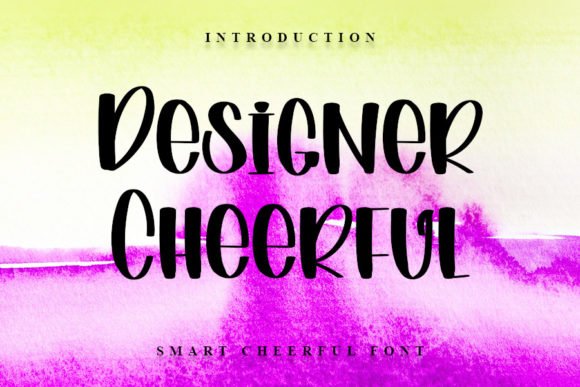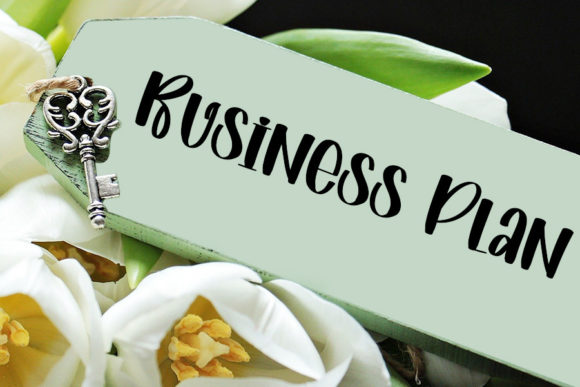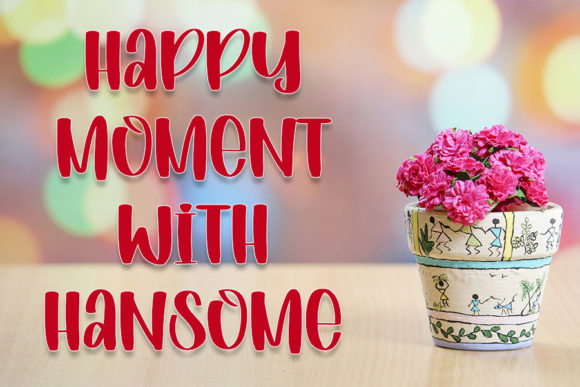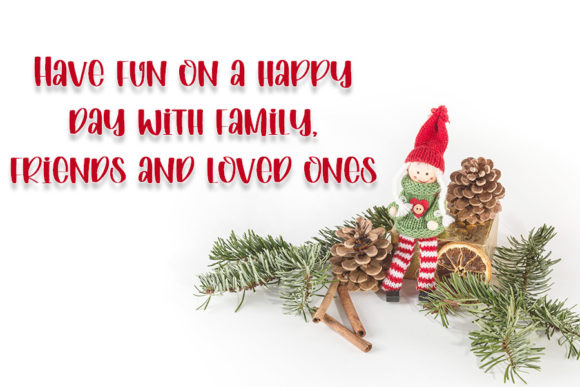
Bringing Joy to Your Designs: The Magic of the Designer Cheerful Font
Who hasn’t had a moment where they stumbled upon a font that perfectly captured the essence of their creative vision? The feeling of excitement and possibility that comes with finding that perfect match is what drives designers to push the boundaries of their work. For me, it was the moment I discovered the Designer Cheerful Font – a smart, cheerful, and cute display font that has since become my go-to choice for projects that require a touch of whimsy.
| 👤 Author | NYA Letter |
Whether you’re working on a cartoon-related design, a children’s game, or simply a creation that needs a lovely touch, the Designer Cheerful Font is an amazing choice. Its versatility and charm make it an invaluable asset for designers looking to add a dash of personality to their work.
Designer Cheerful Font Key Features
- Character Set: This font includes a comprehensive set of characters, including uppercase and lowercase letters, numbers, punctuation marks, and special characters, making it suitable for various applications.
- Unique Characteristics: This font features a cheerful and playful design, with rounded edges and a friendly feel, making it perfect for creating eye-catching headings, titles, and other display text.
- Font Weight and Style: This font comes in regular, bold, italic, and bold italic styles, providing flexibility for creating a range of visual effects and emphasizing important text.
Designer Cheerful Font Review
As a designer, I was excited to dive into the “Designer Cheerful Font” and see how it would fit into my projects. Here’s my honest review:
- The font is incredibly legible, making it perfect for body text and longer paragraphs.
- The cheerful vibe it gives off is just as advertised – it’s playful and fun, without being too over-the-top.
- The font’s versatility allows it to work well in a variety of contexts, from digital displays to print materials.
- The font’s weight range is great, with plenty of options for light, regular, and bold text.
- The font’s design can feel a bit generic at times, which may make it harder to stand out in crowded design spaces.
- The font’s italics can feel a bit too slanted, which may not be ideal for certain projects.
Overall, I’d say the “Designer Cheerful Font” is a solid choice for designers looking for a fun and playful font. While it may not be the most unique or innovative font out there, it’s a reliable choice that’s sure to get the job done. With a little creativity, it can add a lot of personality to your designs.
Tips for Getting the Most Out of the Designer Cheerful Font
For the best results, use the Designer Cheerful Font in conjunction with bold, bright colors and playful graphics. Experiment with different font sizes and styles to create a visually appealing design.
The Designer Cheerful Font is ideal for:
- Invitations and party decorations